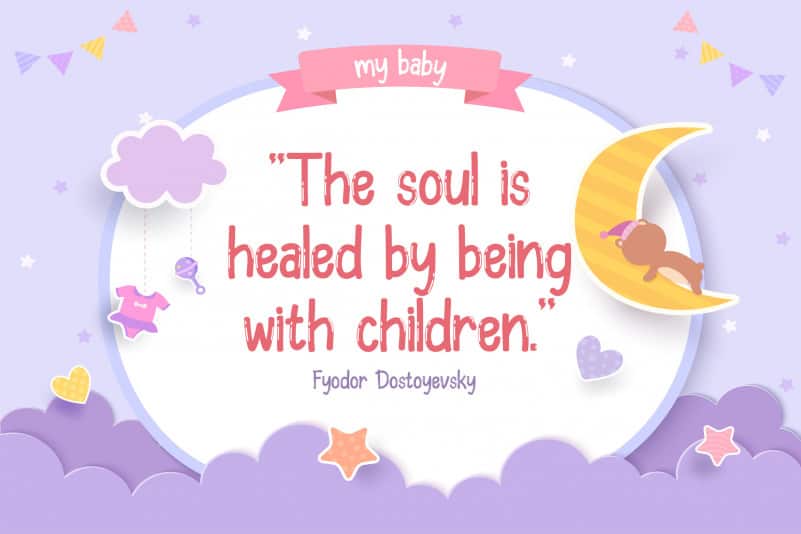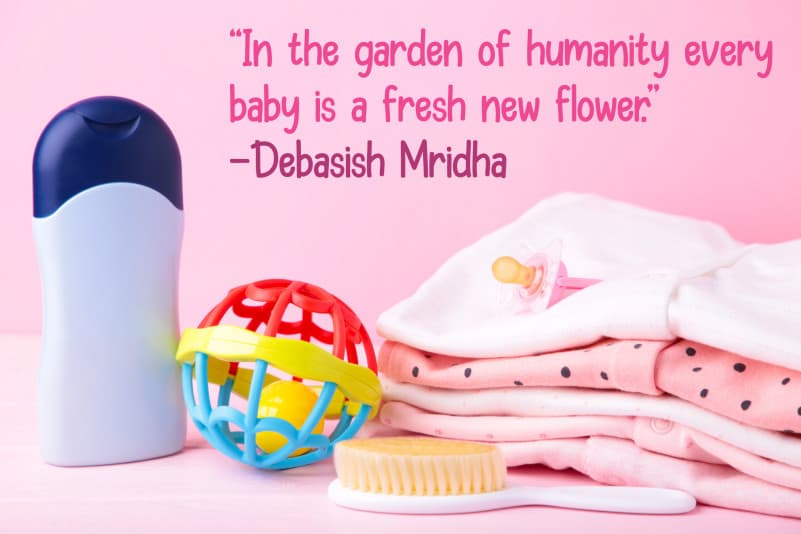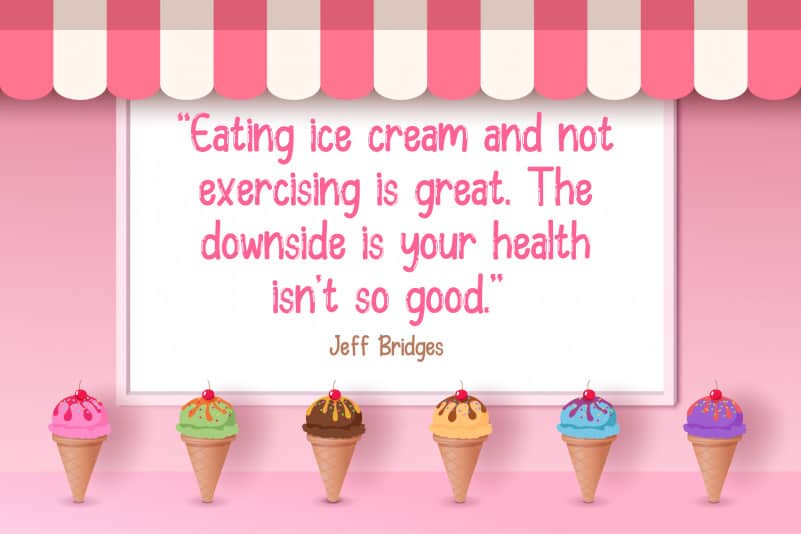
Galler Rebunk Font
Galler Rebunk Font is a sweet and friendly handwritten font that has 2 solid and punched shapes. This dazzling handwritten font will turn any creative idea into a standout. Its natural and unique style makes it perfectly suited to large pool designs. Get inspired by its authentic feel and use it to make beautiful wedding invitations, beautiful stationery art, eye-catching social media posts, and cute greeting cards. The only limit is your imagination!